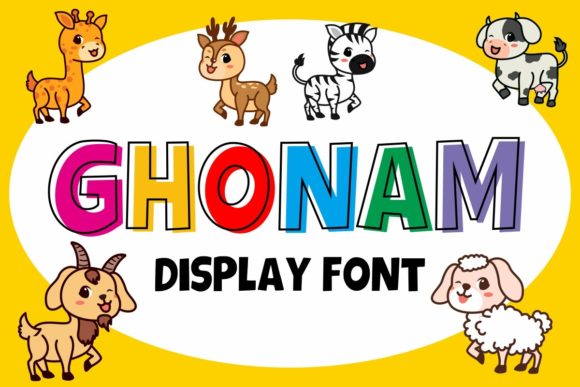
Ghonam Font: The Ultimate Display Font for Friendly and Creative Designs
Are you a designer, crafter, or DIY enthusiast looking for a font that exudes friendliness and playfulness? Look no further than Ghonam Font! This childish, easy-to-read display font is perfect for a wide range of creative projects, from crafts and digital designs to presentations, greeting cards, and more.
The Characteristics of Ghonam Font
Ghonam Font is designed to convey impeccable friendliness, making it an ideal choice for projects that require a personal touch. Its childish and playful style is sure to capture the attention of your audience and leave a lasting impression. The font’s easy-to-read design ensures that your message is communicated clearly, whether you’re using it for packaging, invitations, quotes, or other visual materials.
Versatility of Ghonam Font
One of the best things about Ghonam Font is its versatility. It’s suitable for a wide range of applications, including:
- Product packaging: Add a personal touch to your product labels and packaging with Ghonam Font.
- Invitations: Create eye-catching invitations for parties, events, and other special occasions.
- Quotes: Use Ghonam Font to create inspiring and motivational quotes for social media, posters, or other visual materials.
- T-shirts and apparel: Design custom t-shirts, hoodies, and other apparel with Ghonam Font.
- Labels and stickers: Create custom labels and stickers for your products, gifts, or DIY projects.
- Posters and flyers: Design eye-catching posters and flyers for events, promotions, or other marketing campaigns.
- Logos and branding: Use Ghonam Font to create a friendly and approachable logo for your brand.
Why Choose Ghonam Font?
So, why should you choose Ghonam Font for your next project? Here are just a few reasons:
- Friendliness: Ghonam Font exudes friendliness and approachability, making it perfect for projects that require a personal touch.
- Readability: The font’s easy-to-read design ensures that your message is communicated clearly, even at small sizes.
- Versatility: Ghonam Font is suitable for a wide range of applications, from crafts and digital designs to presentations and packaging.
- Creativity: The font’s playful style inspires creativity and imagination, making it perfect for designers, crafters, and DIY enthusiasts.
Tips for Using Ghonam Font
Here are a few tips for getting the most out of Ghonam Font:
- Experiment with colors: Ghonam Font looks great in a variety of colors, so don’t be afraid to experiment and find the perfect hue for your project.
- Mix and match: Combine Ghonam Font with other fonts and design elements to create a unique and eye-catching visual style.
- Keep it simple: Don’t overcomplicate your design – Ghonam Font is perfect for simple, yet effective designs.
In conclusion, Ghonam Font is a versatile and friendly display font that’s perfect for designers, crafters, and DIY enthusiasts. Its childish and playful style conveys impeccable friendliness, making it an ideal choice for projects that require a personal touch. With its ease of use, readability, and versatility, Ghonam Font has the potential to become your favorite go-to font for all your creative projects.